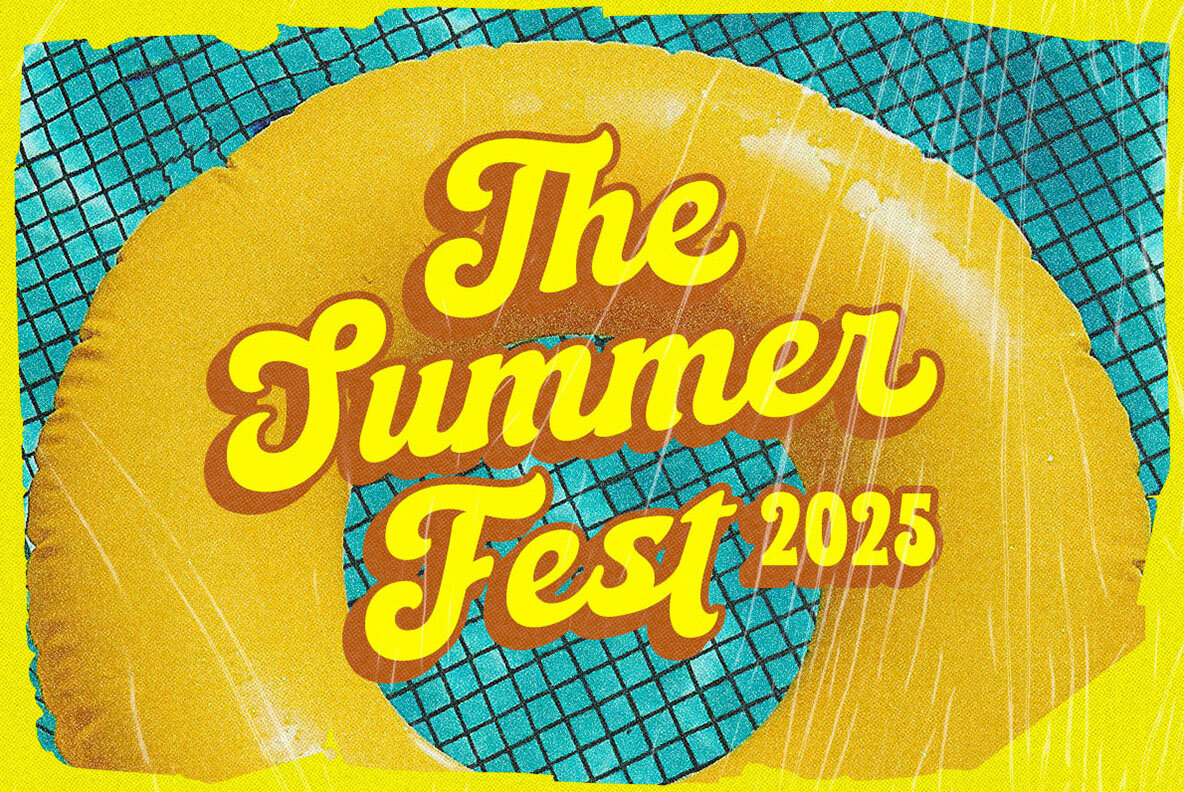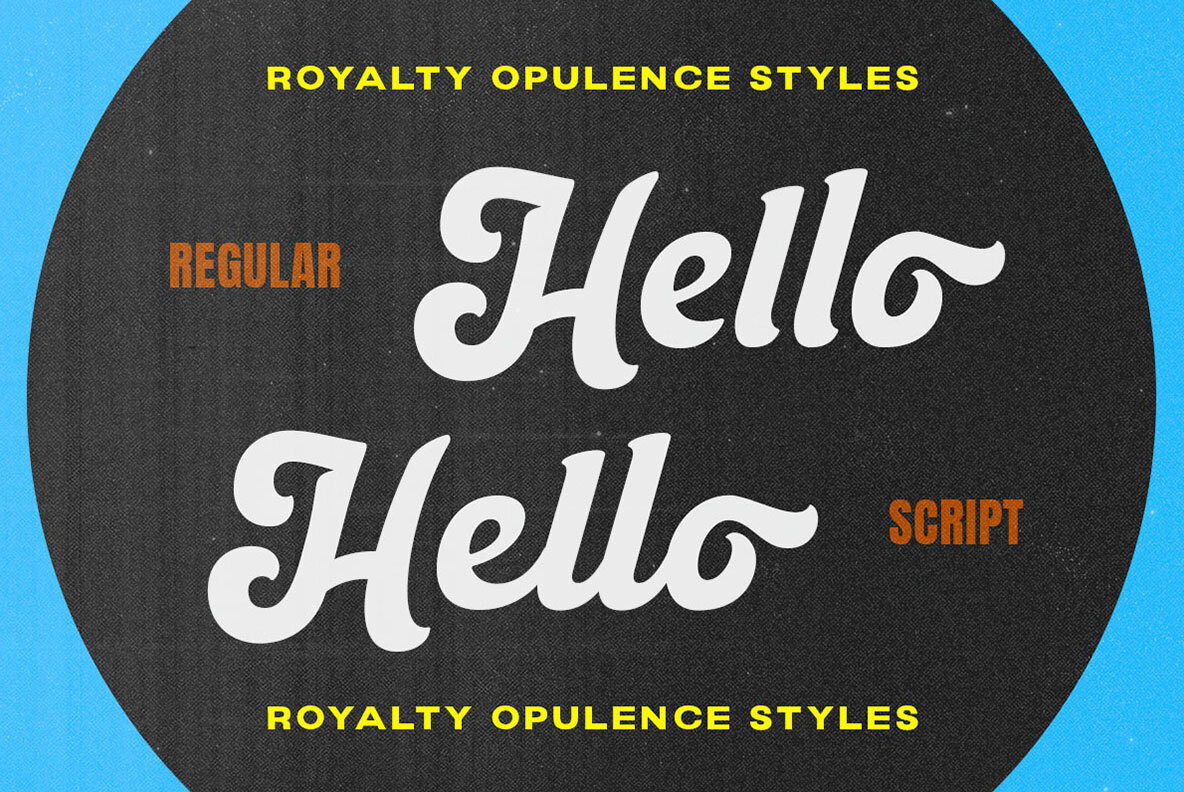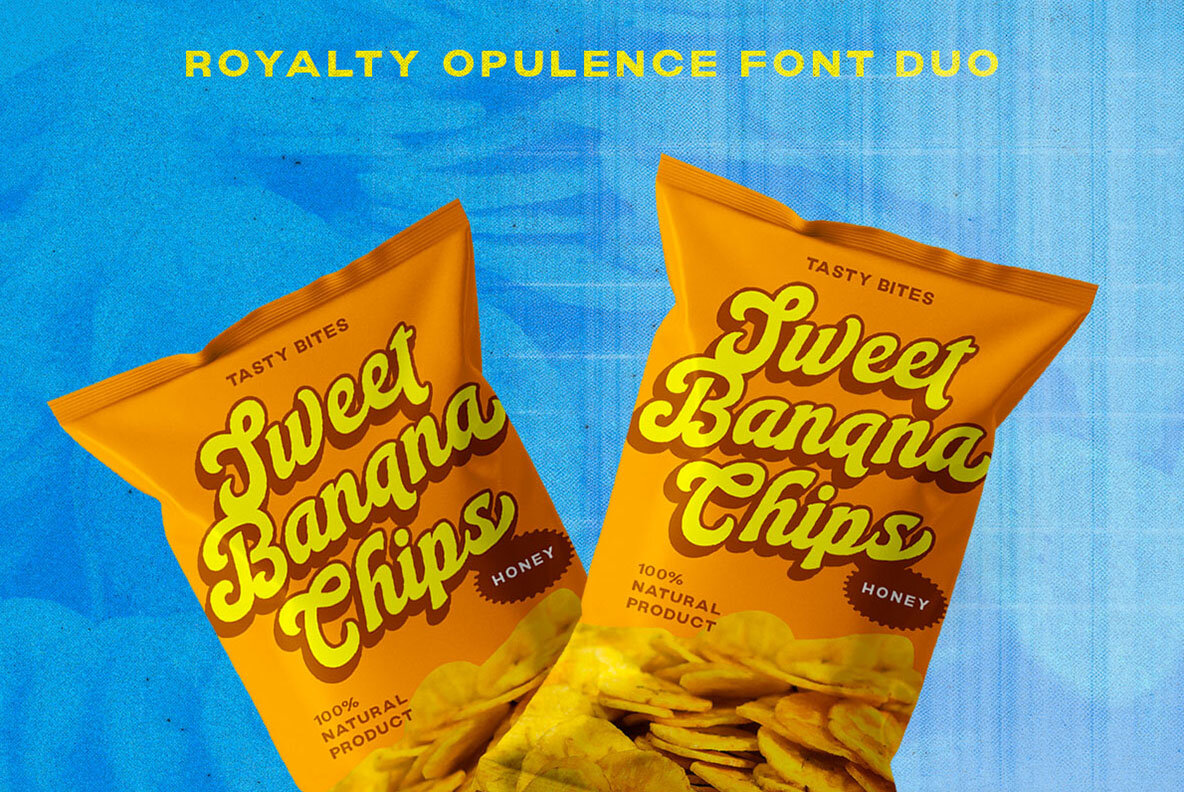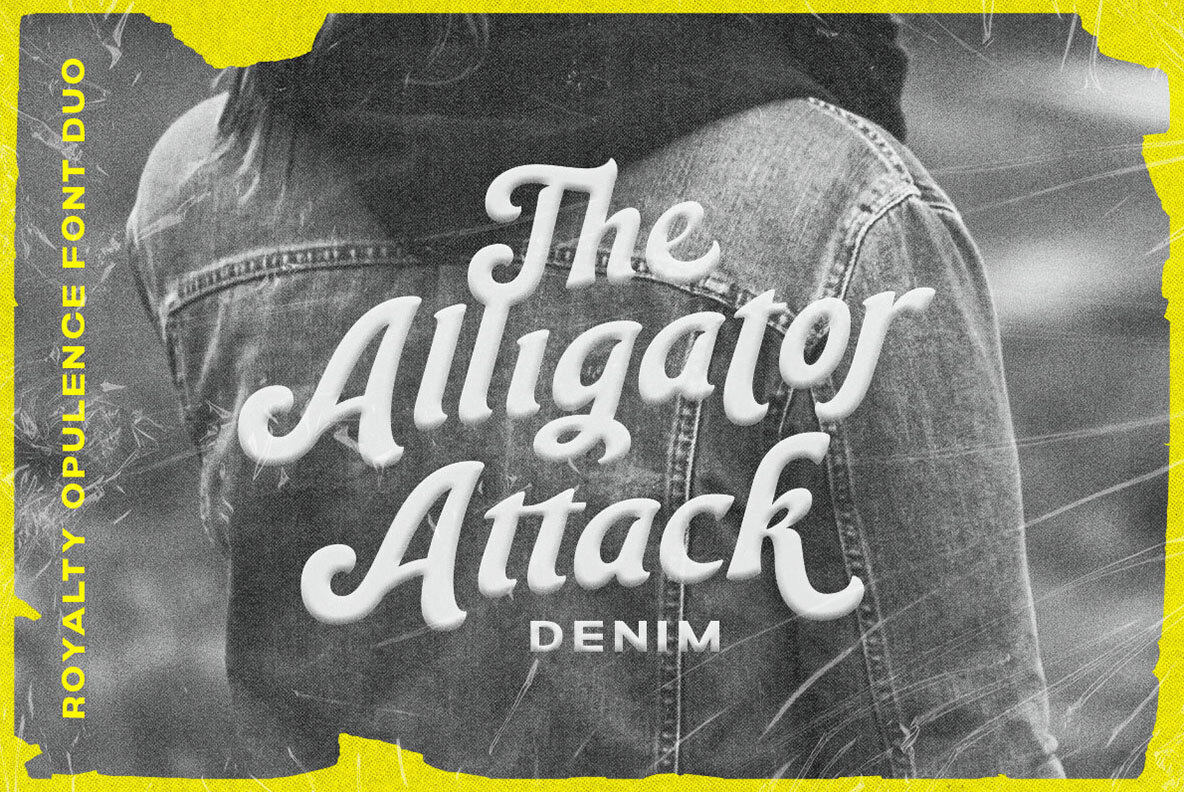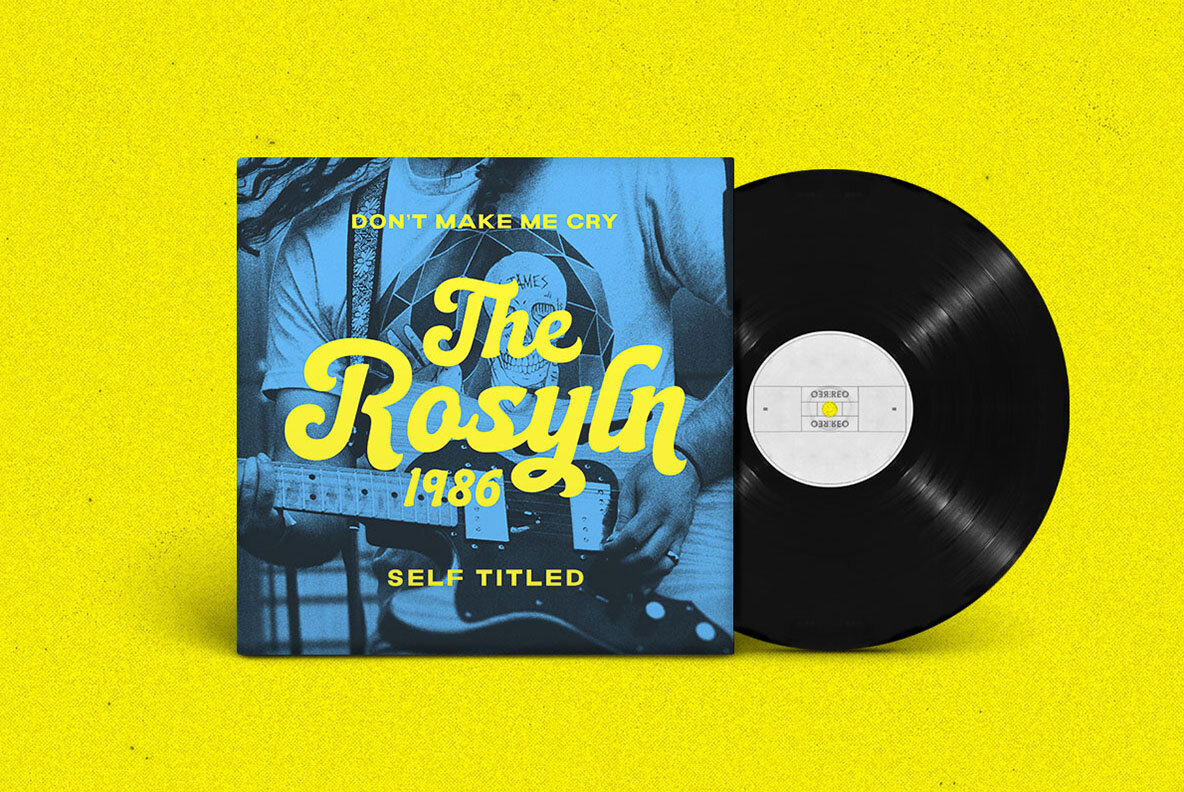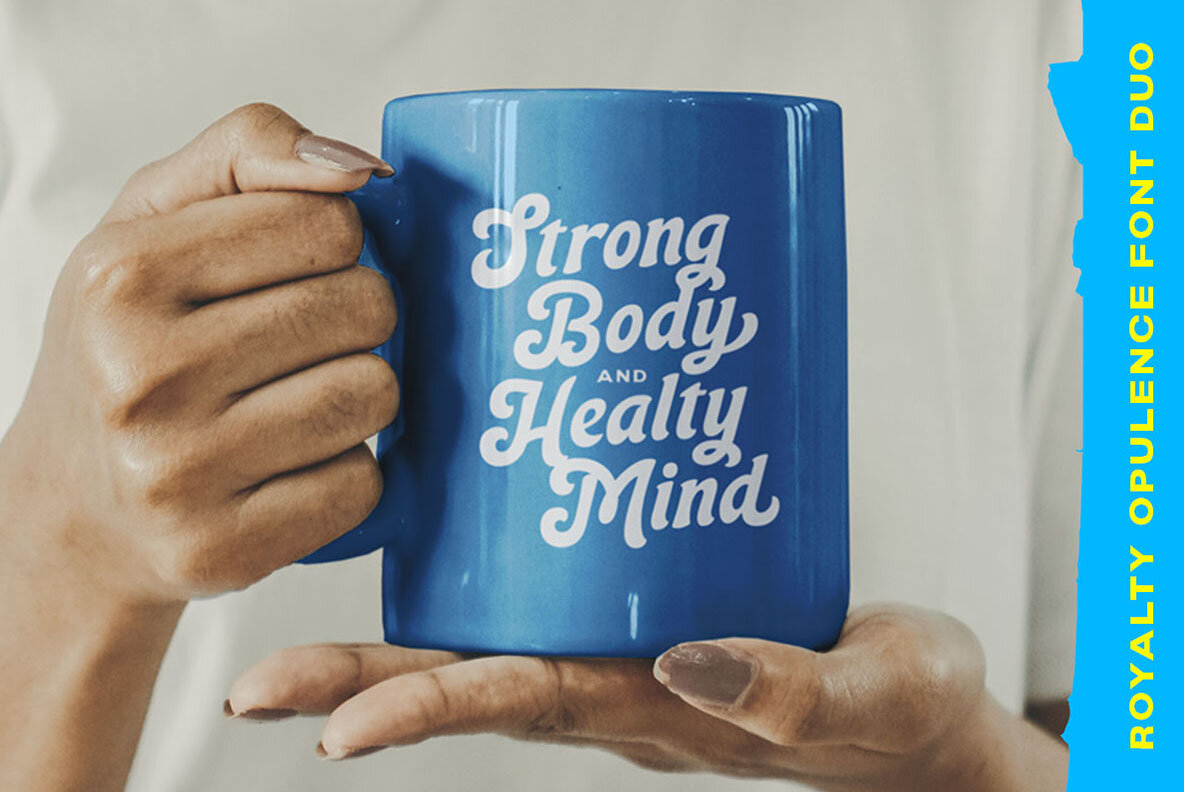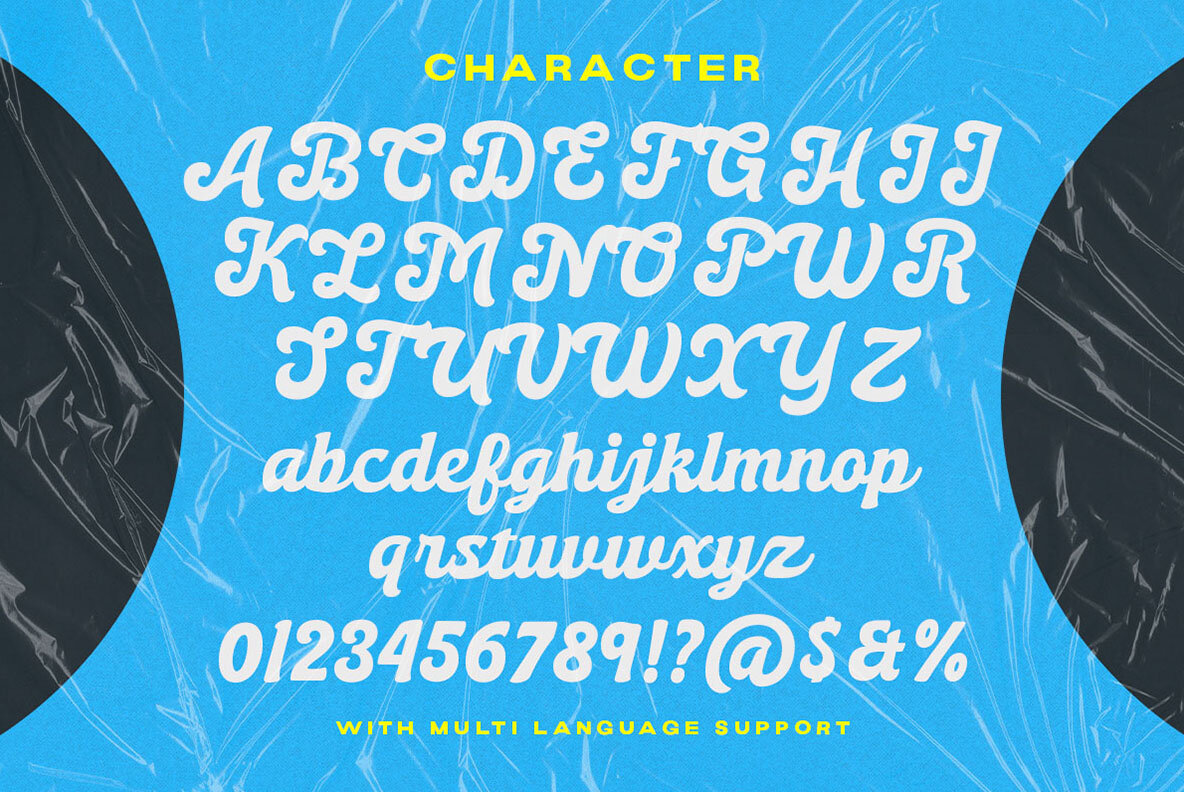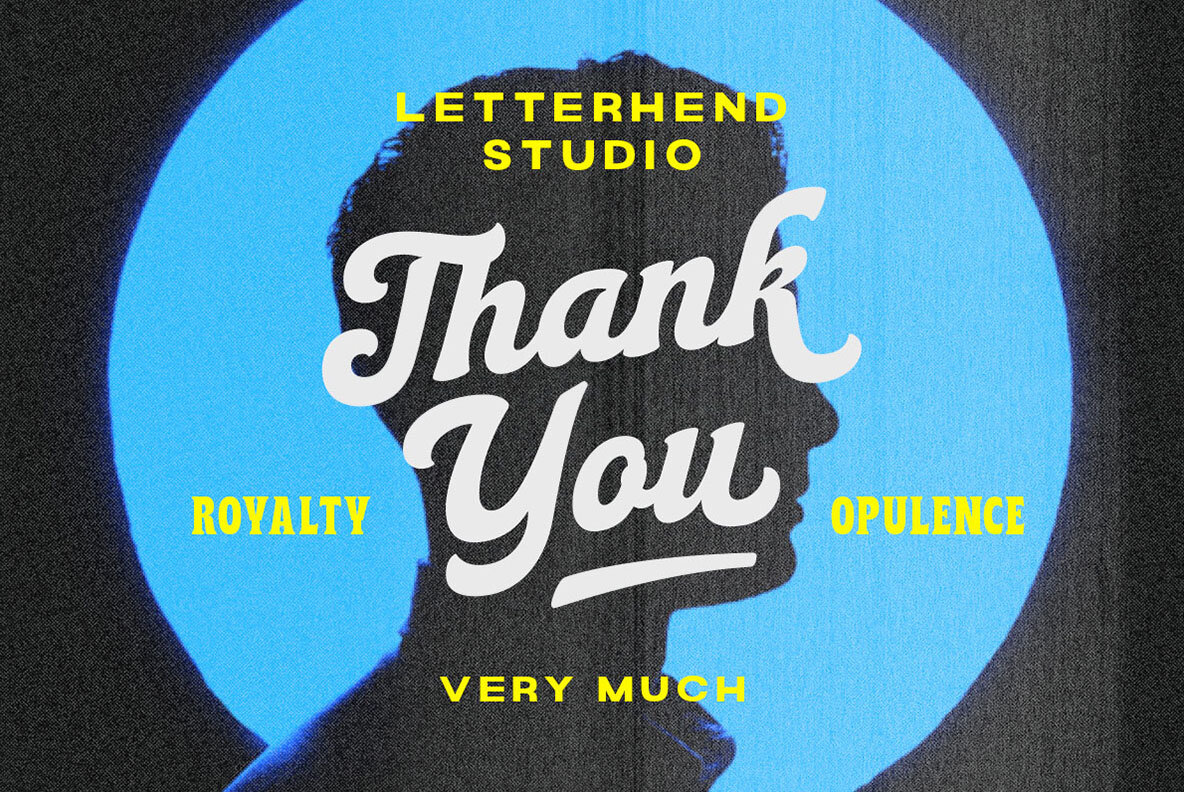
Royalti Opulance Catchy Font Duo
Introducing, Royalti Opulance - a standout bold script with simple sans in one typeface. This type of font perfectly made to be applied especially in logo, headline, signage and the other various formal forms such as invitations, labels, logos, magazines, books, greeting / wedding cards, packaging, fashion, make up, stationery, novels, labels or any type of advertising purpose.